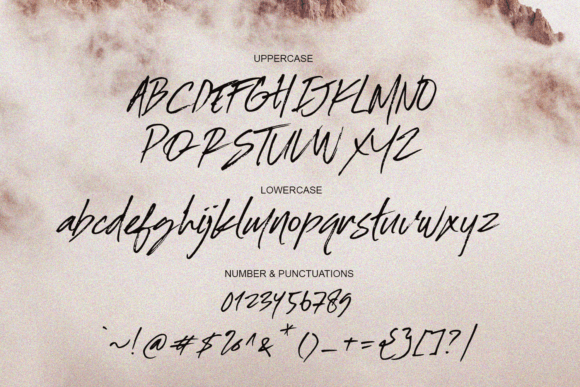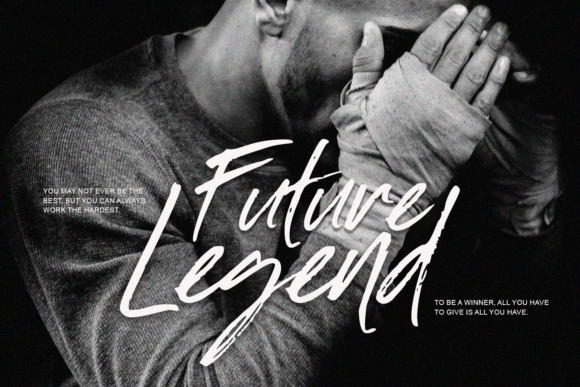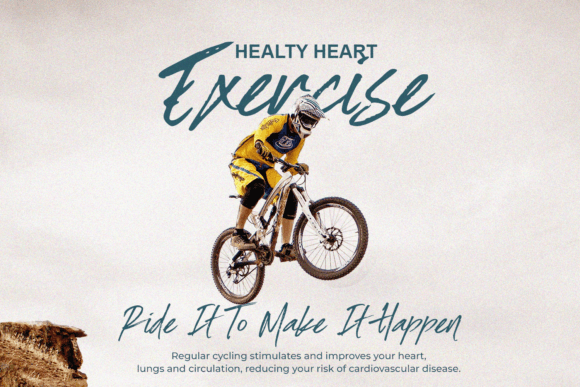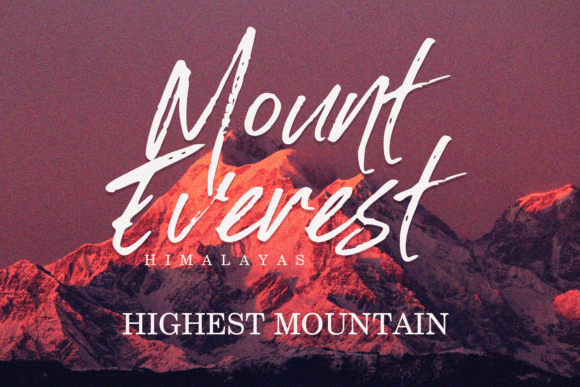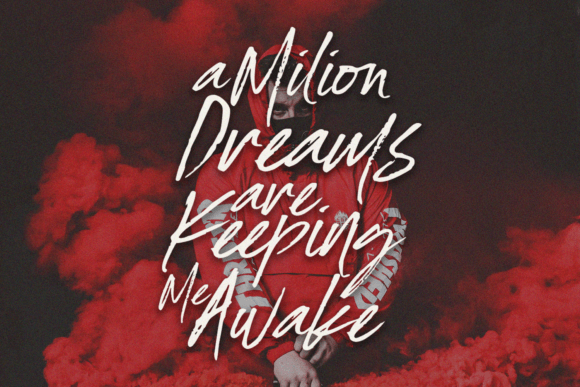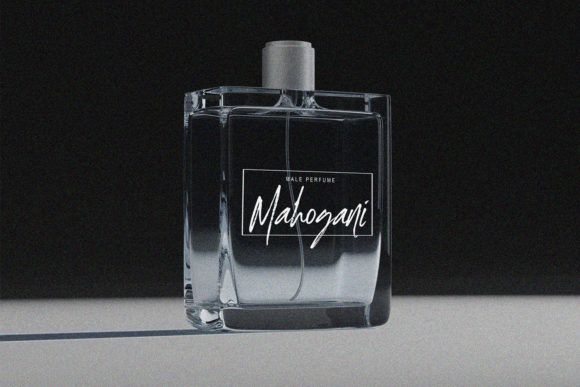
Unleash Your Creativity with Astrolight Font: A Bold and Versatile Typeface
Are you a designer or crafter looking for a font that embodies bold, unapologetic character? Look no further than Astrolight Font. Imbued with the raw energy of brushpen strokes, Astrolight font is a game-changer for creatives aiming to set themselves apart. With its exquisite formation and meticulous precision, this font radiates an unmistakable handmade charm that is sure to elevate your designs.
The Essence of Astrolight Font
At the heart of Astrolight Font lies a unique blend of boldness and sophistication. The font’s brushpen strokes give it a dynamic, expressive quality that is perfect for creating statement pieces. Whether you’re designing a logo, crafting a quote, or creating a magazine cover, Astrolight Font is the perfect companion. Its versatility is unmatched, and it functions equally well in a variety of design exploits.
A Versatile Partner for Design Exploits
The members of the Astrolight family are designed to be versatile partners in your design journey. They lend gravity to signature logos, adding an air of professionalism and sophistication. In stationery, Astrolight Font elevates your designs, making them perfect for business cards, letterheads, and more. The font’s allure is also perfect for magazine covers, grabbing the attention of readers and setting the tone for your content.
But Astrolight Font doesn’t just stop at print design. It’s also an excellent choice for website headers, providing a dynamic typeface that is sure to make your online presence stand out. With Astrolight, you can create a unique brand persona that resonates with your audience. Its bold, expressive strokes are perfect for crafting quotes that linger in the mind, making it a popular choice among creatives.
Unleash Your Creative Potential
With Astrolight Font, your creative potential is unleashed. The font’s spirited originality and vibrant strokes ignite your artistic vision, inspiring you to create something truly unique. Whether you’re a seasoned designer or a crafty DIY enthusiast, Astrolight Font is the perfect tool to help you express yourself. Its handmade charm and bold character make it perfect for a wide range of design applications.
Key Features of Astrolight Font
- Bold and expressive strokes: Astrolight Font’s brushpen strokes give it a dynamic, expressive quality that is perfect for creating statement pieces.
- Versatile: The font functions equally well in a variety of design exploits, from logos and stationery to magazine covers and website headers.
- Handmade charm: Astrolight Font’s exquisite formation and meticulous precision radiate an unmistakable handmade charm.
- Sophisticated and elegant: The font’s bold character is balanced by a sophisticated and elegant aesthetic.
Tips for Using Astrolight Font
To get the most out of Astrolight Font, here are a few tips:
- Experiment with different sizes: Astrolight Font looks great in a variety of sizes, from large headings to smaller body text.
- Play with colors: The font’s bold strokes look great in a range of colors, from bold and bright to more muted and subtle.
- Mix and match: Try pairing Astrolight Font with other fonts to create a unique and eye-catching design.
In conclusion, Astrolight Font is a bold and versatile typeface that is perfect for creatives aiming to set themselves apart. With its handmade charm, sophisticated aesthetic, and dynamic strokes, it’s the perfect companion for a wide range of design exploits. Whether you’re a designer, crafter, or DIY enthusiast, Astrolight Font is sure to unleash your creative potential and inspire you to create something truly unique.